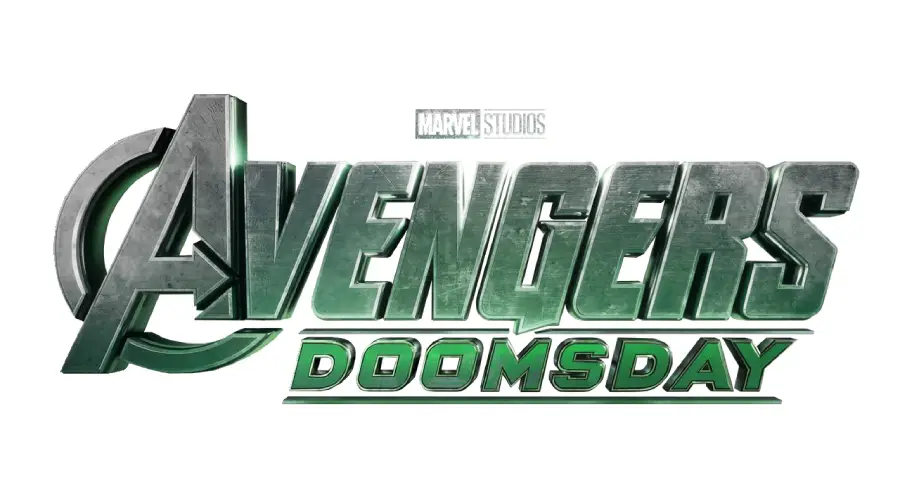
The Avengers Doomsday Font is a striking typeface that captures the essence of the MCU film Avengers: Doomsday. This font is often associated with the movie’s branding and logo, exuding a futuristic and bold aesthetic. While there isn’t an official font explicitly named “Avengers: Doomsday,” its design closely resembles popular typefaces like Monday and Neo by FG Studios. These fonts are widely used in fan-made designs, promotional materials, and creative projects inspired by the film.
Similar Fonts to Avengers: Doomsday Font
If you’re looking for fonts that mimic the style of the Avengers: Doomsday Font, here are two excellent alternatives:
- Neo Regular by FG Studios – This font is strikingly similar to the one used in the Avengers logo, featuring clean, modern lines with a futuristic vibe.
- Monday by FG Studios – A close match to the Doomsday font, Monday offers a bold and edgy design, perfect for capturing the movie’s intense and dramatic tone.
These fonts are ideal for creating designs that align with the Avengers: Doomsday theme, whether for personal projects, fan art, or branding purposes.